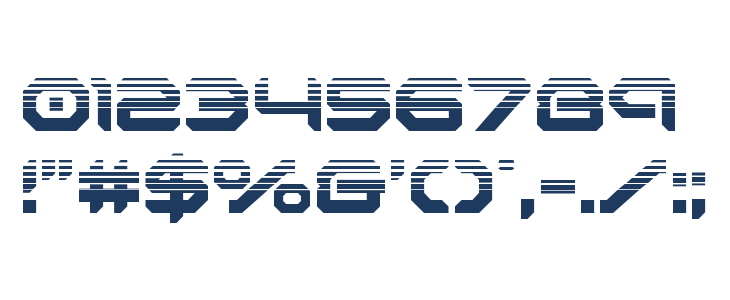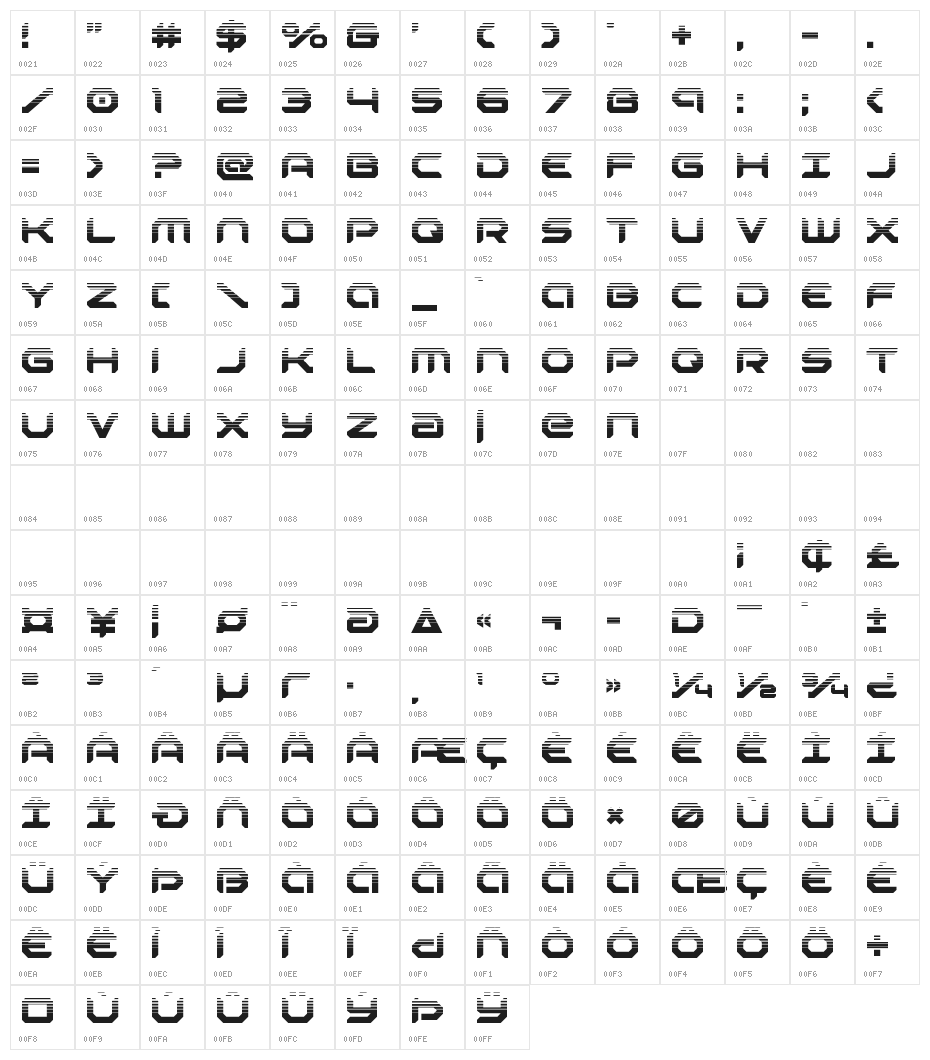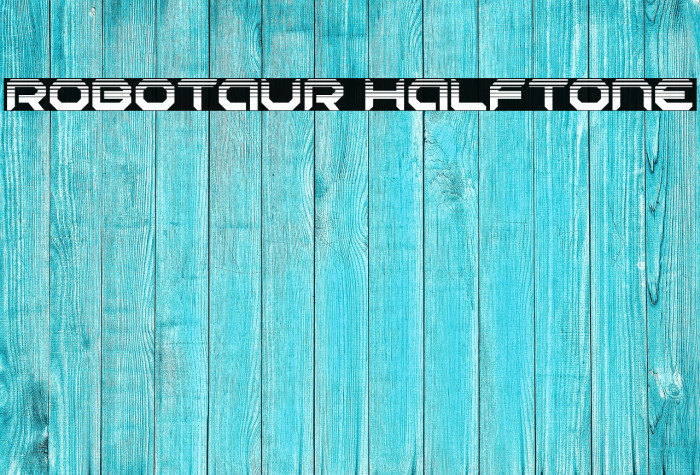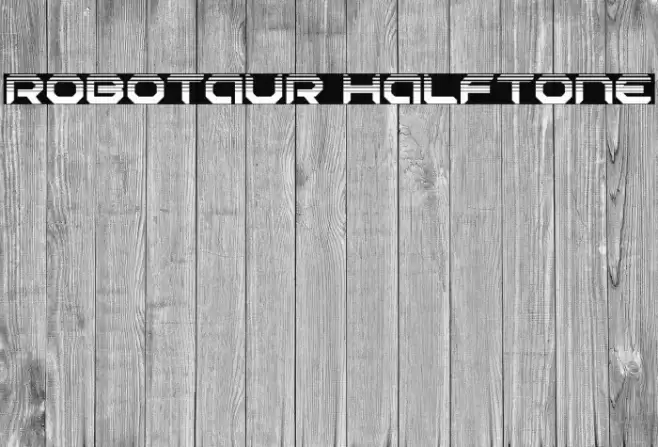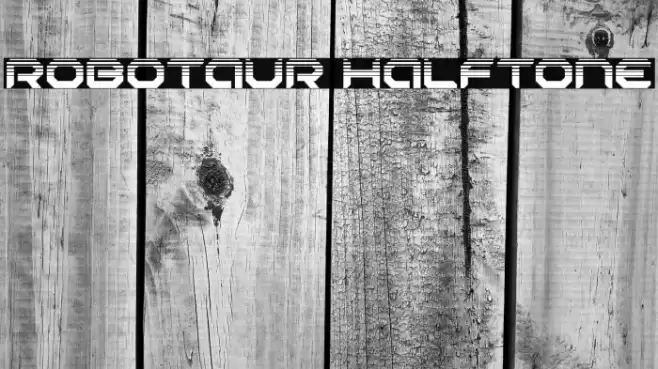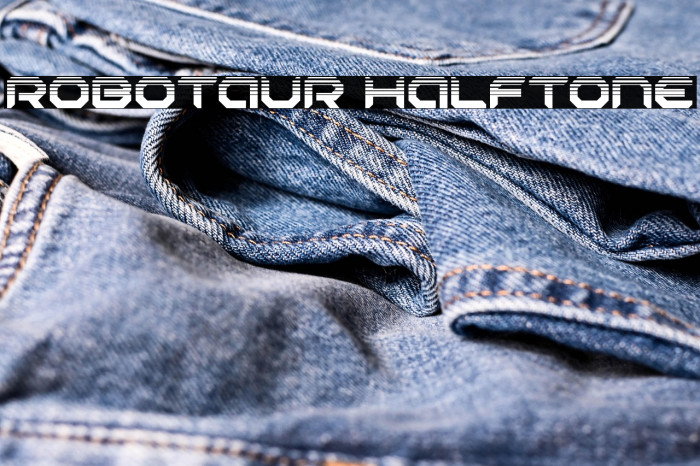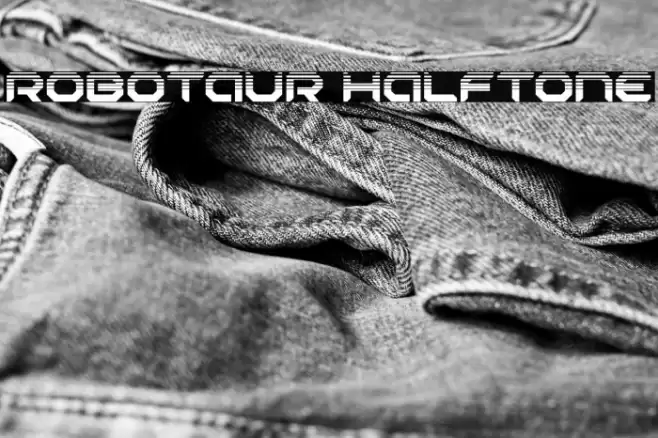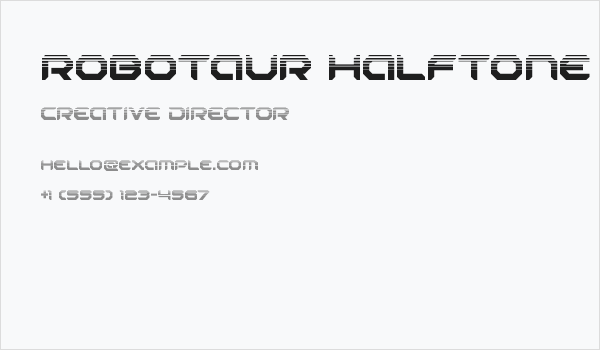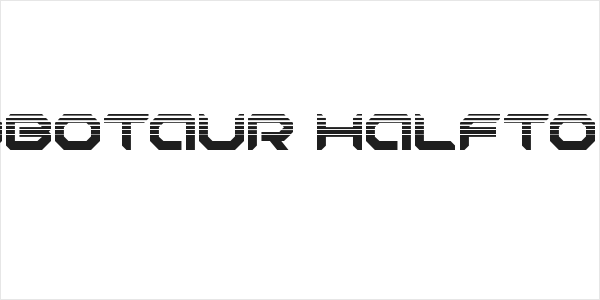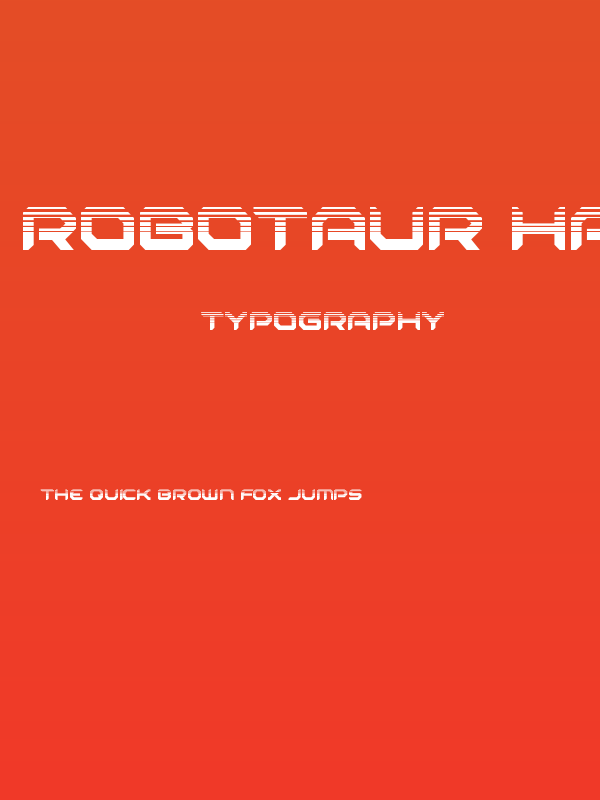
Robotaur Halftone Font
Robotaur Halftone Description
This font features a futuristic and mechanical design, characterized by its bold, geometric shapes and halftone pattern that gives it a unique, layered appearance. The characters are constructed with a series of horizontal lines that create a sense of depth and movement. The uppercase and lowercase letters maintain a consistent style, with sharp angles and a blocky structure that evokes a sense of strength and modernity. The numerals and special characters follow the same design principles, ensuring a cohesive look across all glyphs. This font's distinctive style makes it ideal for projects that require a bold, industrial aesthetic.
| Proposed Projects | Ideal for sci-fi themed projects, video game titles, tech branding, and futuristic posters. |